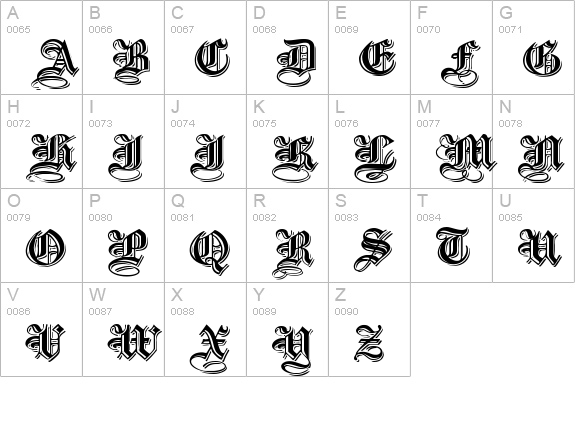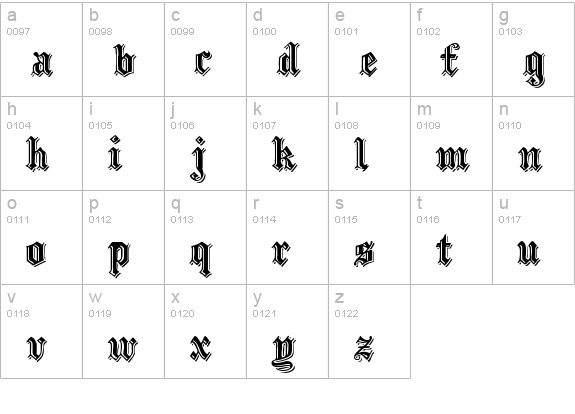
EmbossedBlackWide Normal Font Details
EmbossedBlackWide Normal is the standard, neutral variant in the EmbossedBlackWide typeface family \xE2\x80\x94 well suited to general body text, paragraphs, and standard typographic work.
EmbossedBlackWide Normal font is a modern and stylish typeface that adds a touch of sophistication to any design project. With its bold and distinctive look, this font is perfect for headlines, titles, and other display purposes. The embossed effect gives it a unique texture that makes it stand out from other fonts. And the best part is, EmbossedBlackWide Normal font is available for free download at FontsMarket.com! Whether you're a designer looking to add a special touch to your creations or someone in need of a standout font for personal use, this font has got you covered. Don't miss out on the opportunity to enhance your designs with this eye-catching typeface today!